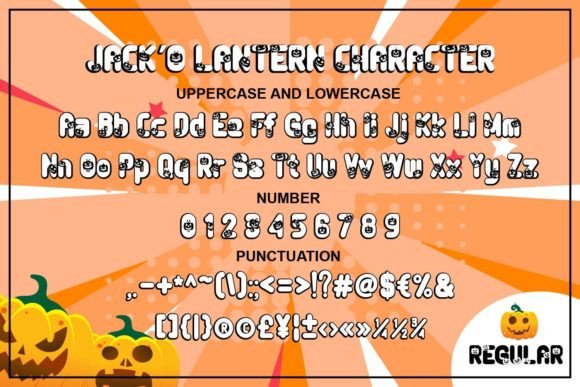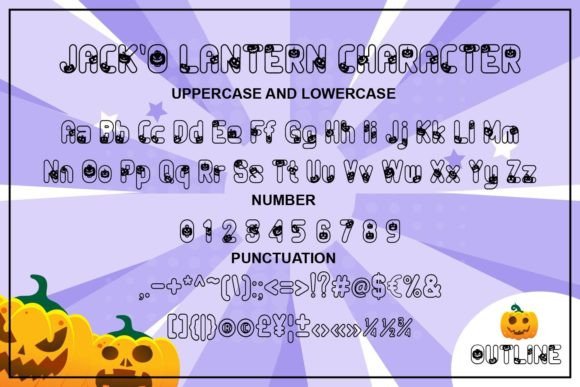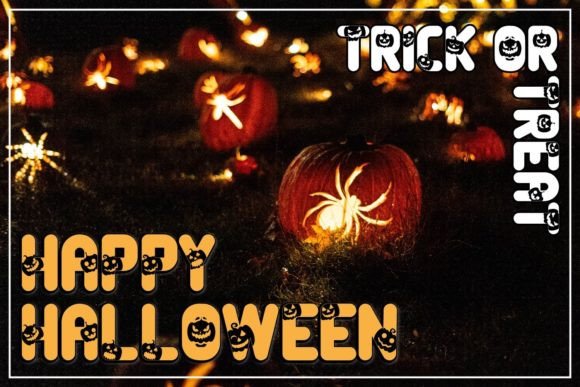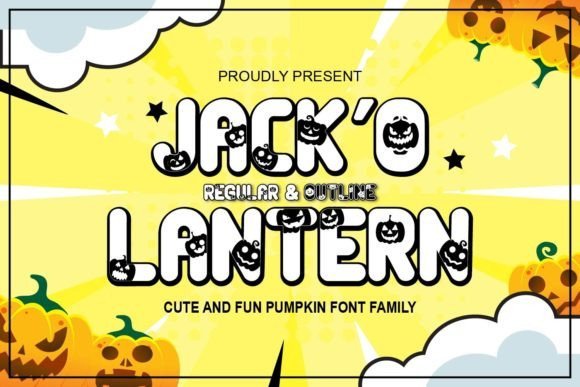
Introduction to Jack O Latern Font
Jack’o Lantern is a fun and playful display font with a scary and cute horror theme.
Masterfully designed to become a true favorite, this font has the potential to bring each of your creative ideas to the highest level .
Key Features of Jack O Latern Font
Why Choose Jack O Latern Font?
Jack O Latern Font offers exceptional quality and versatility, making it a valuable addition to your design toolkit. Whether you’re creating for personal projects or commercial use, Jack O Latern Font delivers professional results.